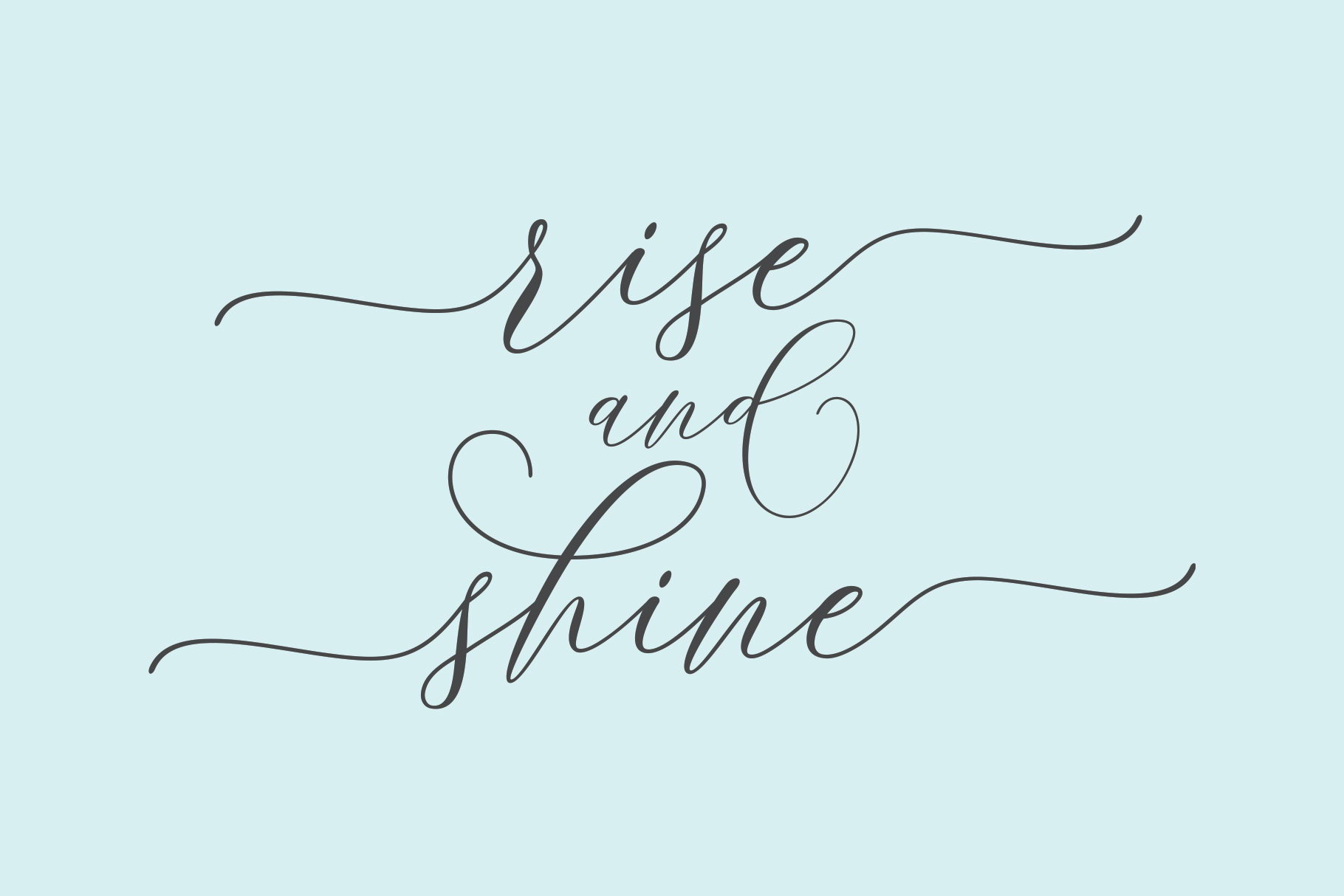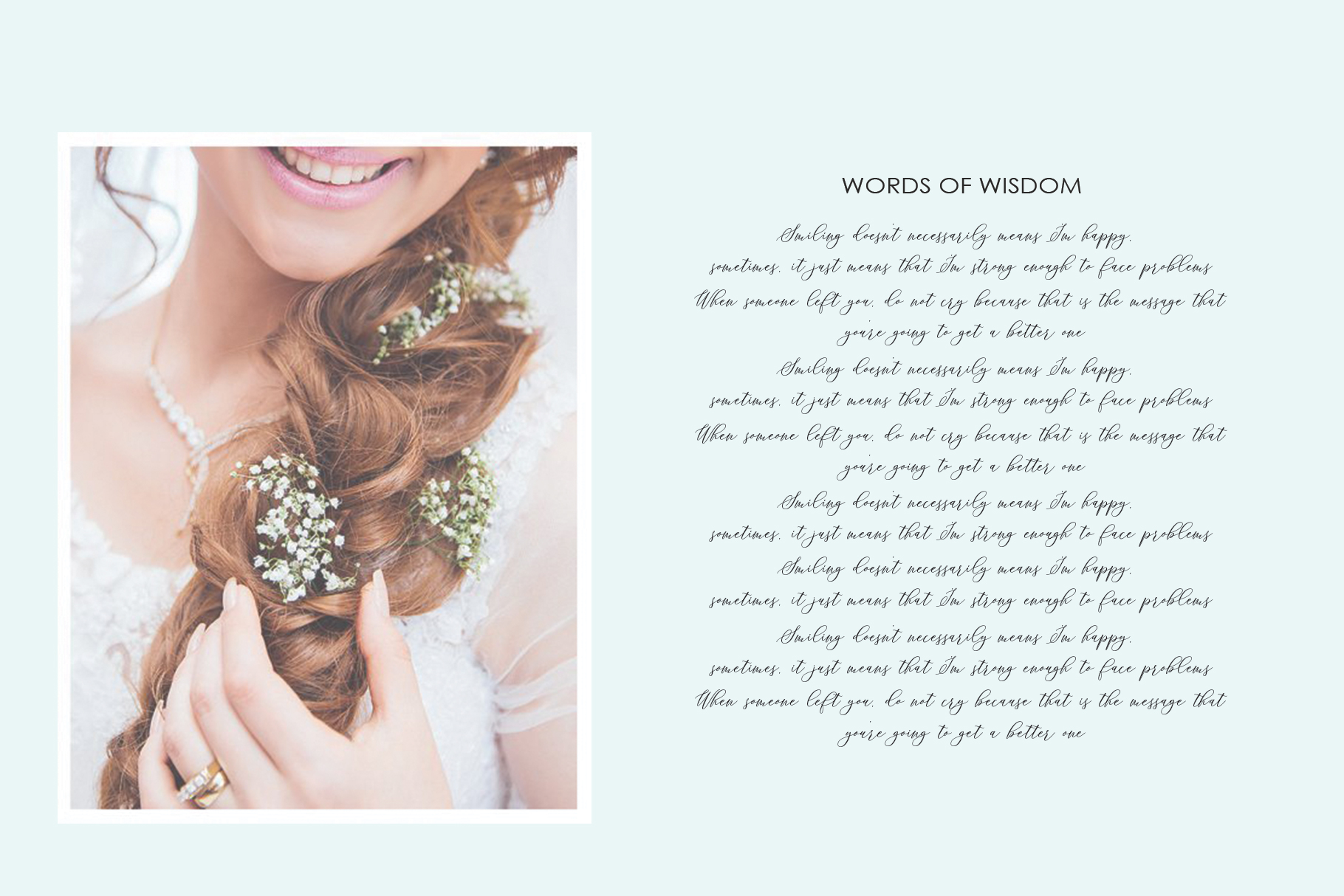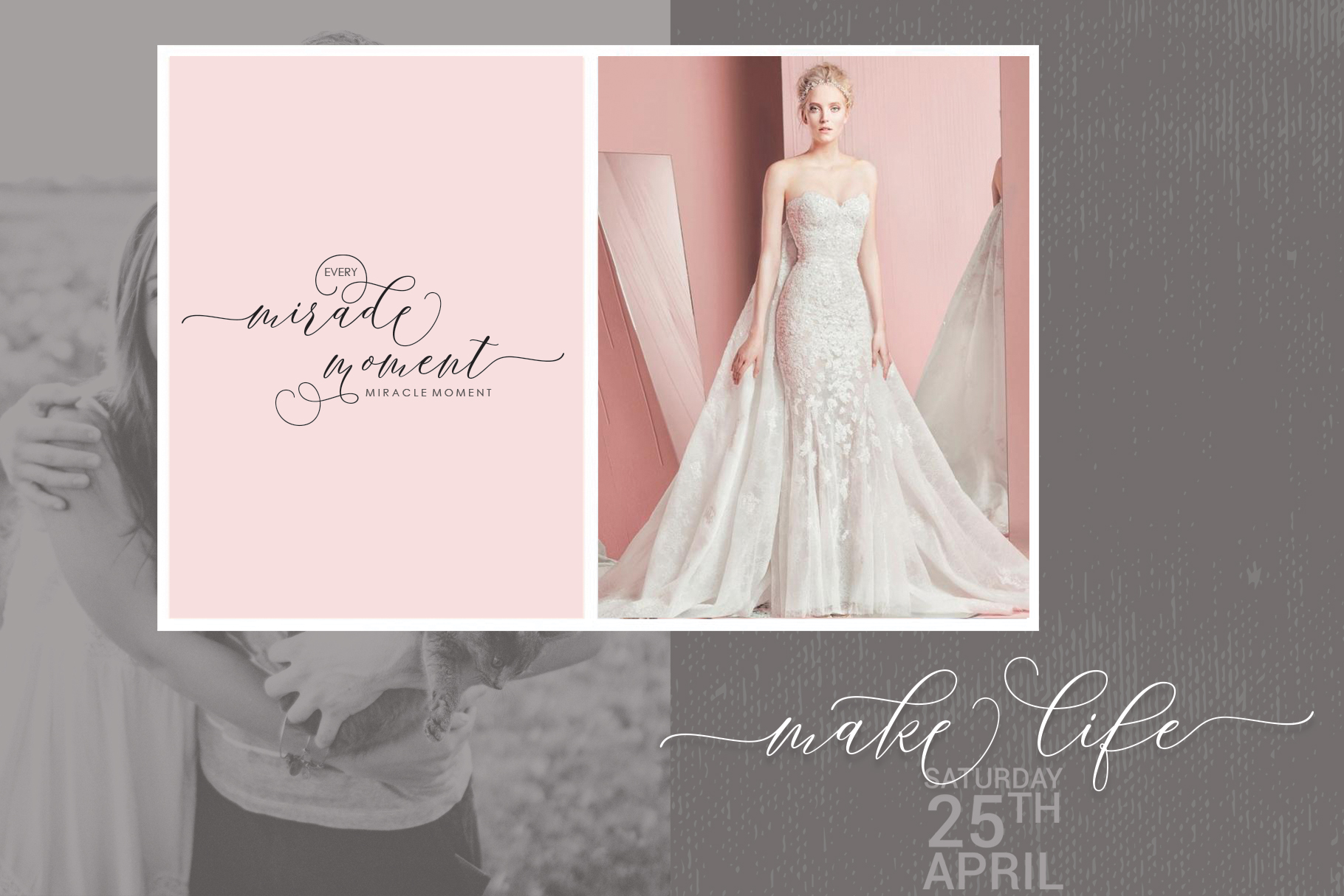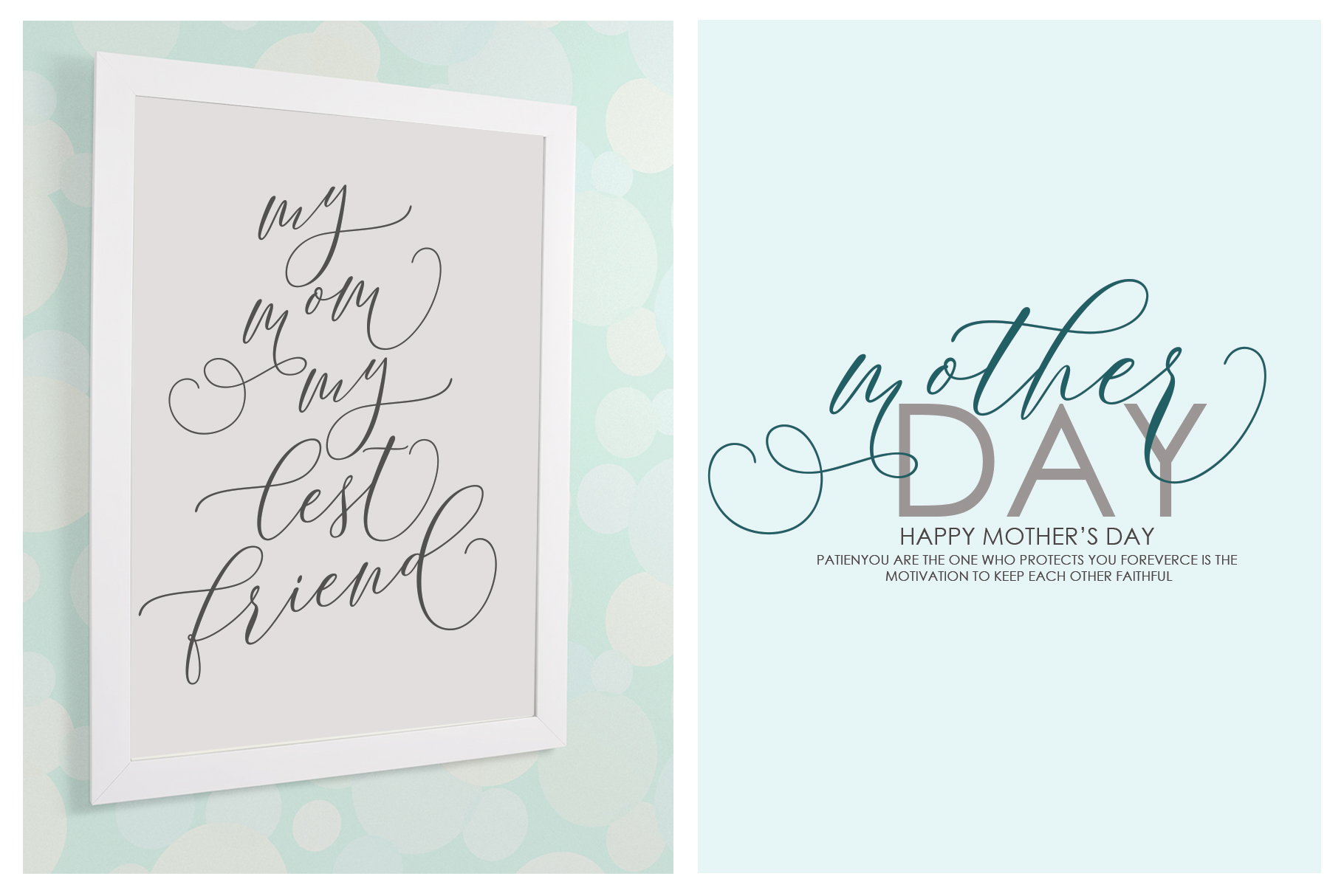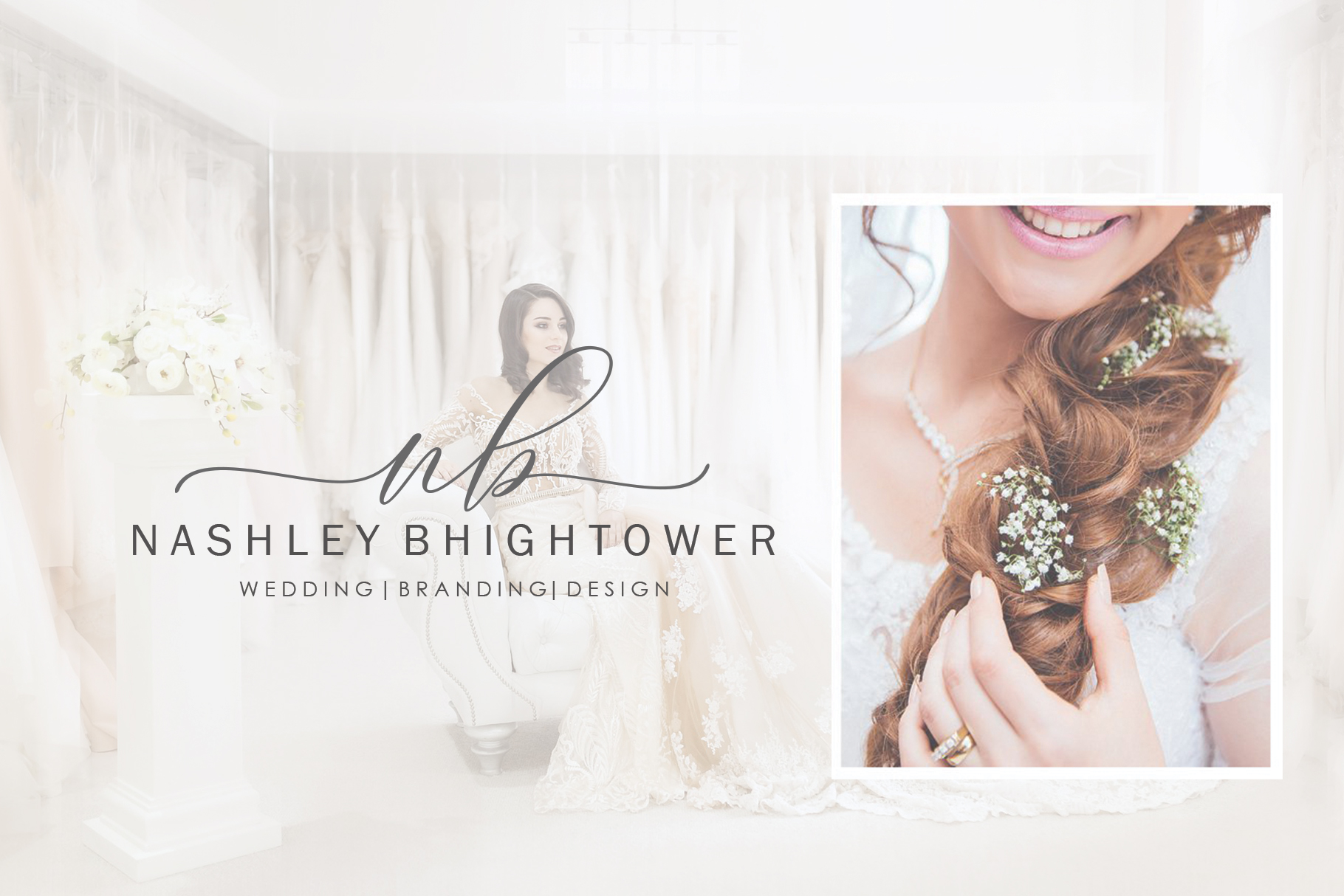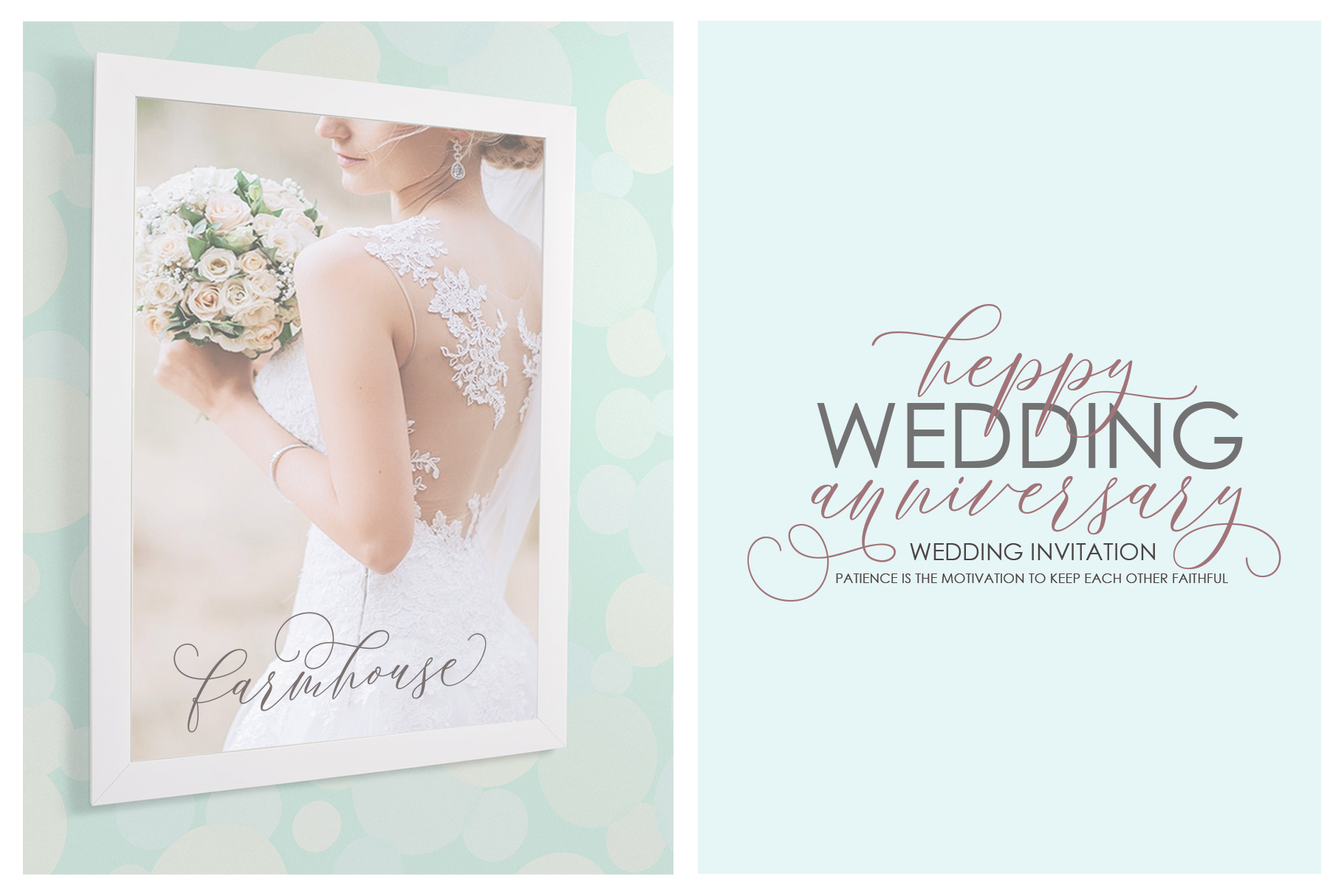
Farmhouse Font
About Farmhouse Font
Farmhouse is a beautiful and calligraphic font that exudes elegance and class. This font is specially crafted for those who need a beautiful and refreshing look to their designs. This font comes with stylistic sets, initials, swashes, and ligatures for fully customizable designs.